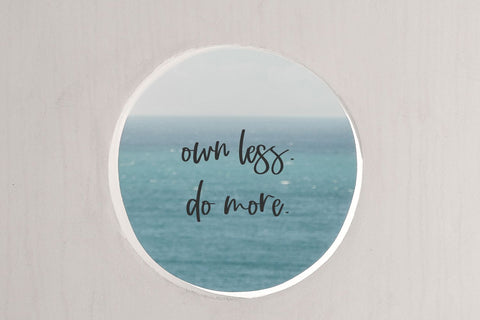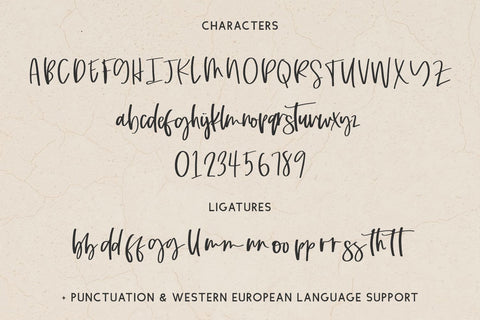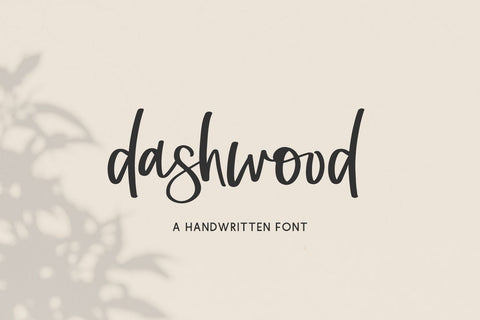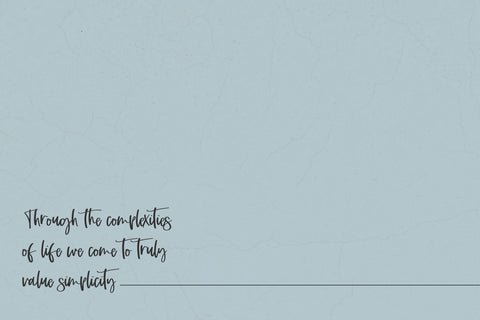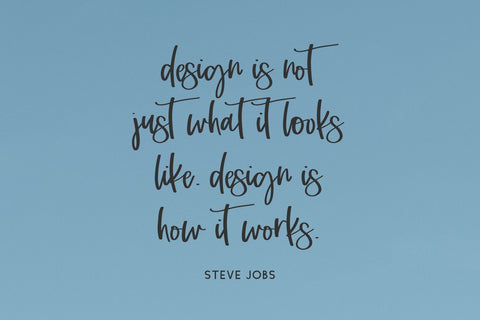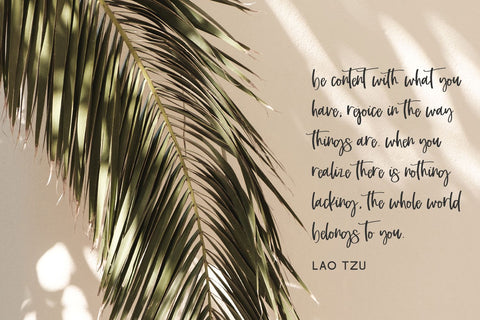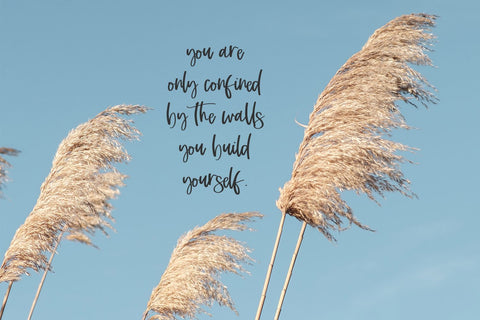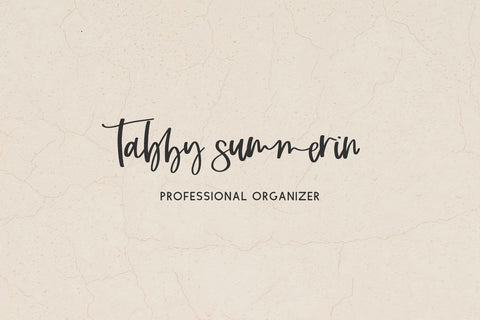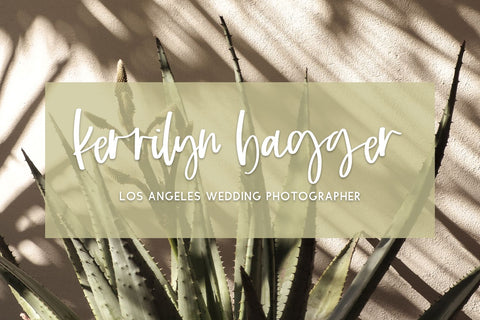
Dashwood Script Font
Introducing Dashwood Script, a modern calligraphy script.  This script includes some ligatures to enhance the handwritten appeal, and also sports thicker strokes for legibility.
Dashwood Script is best for:
- logos + branding for gender-neutral applications
- website design + website accents - think design blogs, travel blogs, fashion blogs, & more
- clean print design, like magazines + flyers
- header elements that need handwritten touch
- quote graphics for social media
- crafting with Cricut or Silhouette machines, since it has a super smooth edge for cutting vinyl!
Dashwood Script includes:
- full upper + lowercase characters
- numbers + punctuation
- 13 ligatures - bb, dd, ff, gg, ll, mm, nn, oo, pp, rr, ss, th, tt
- Western European Language Support